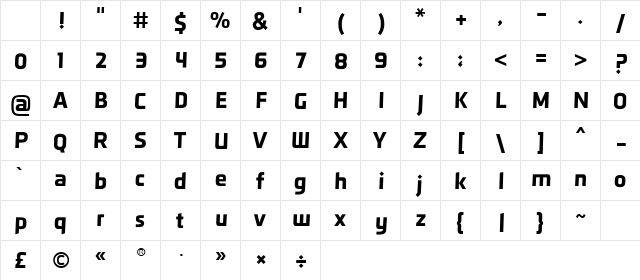
Complete rpt Bold glyph index. Displaying only characters natively supported by rpt Bold font.
rpt is a composed and adaptable typeface that performs quietly and consistently across a wide range of design contexts. Its bold stroke weight gives it real presence on the page.